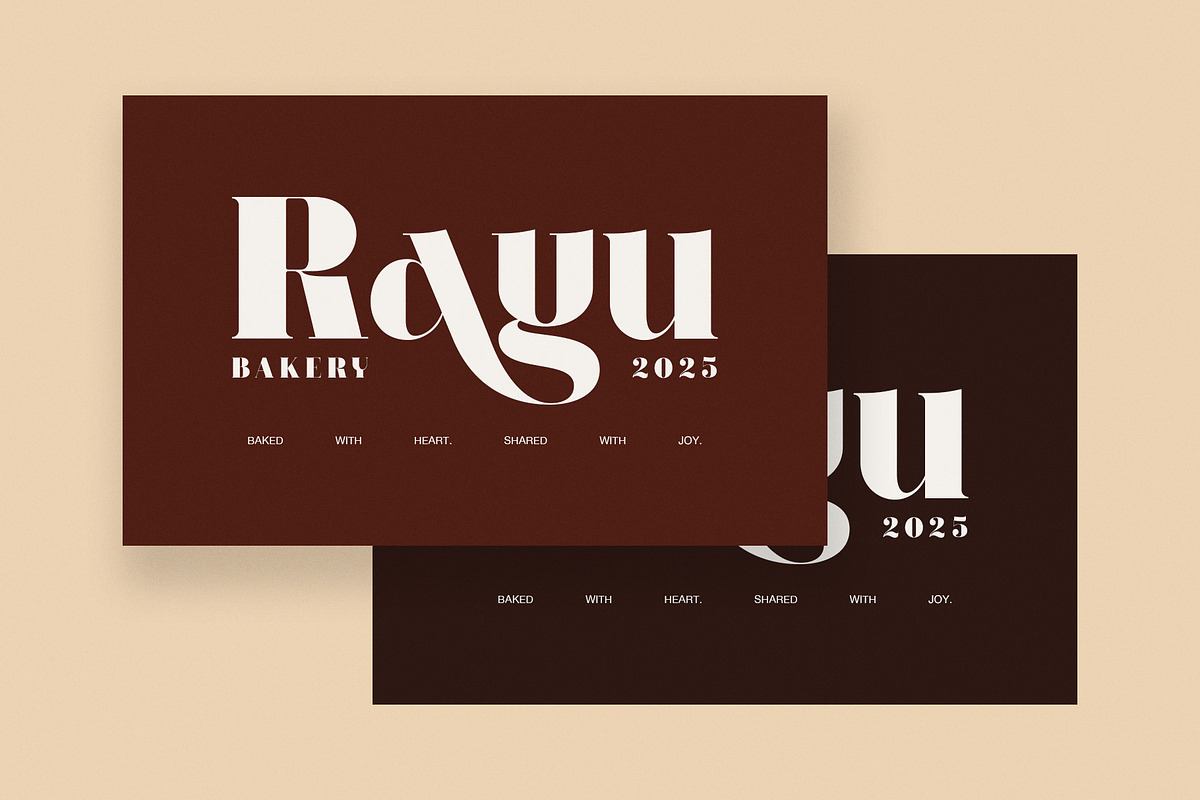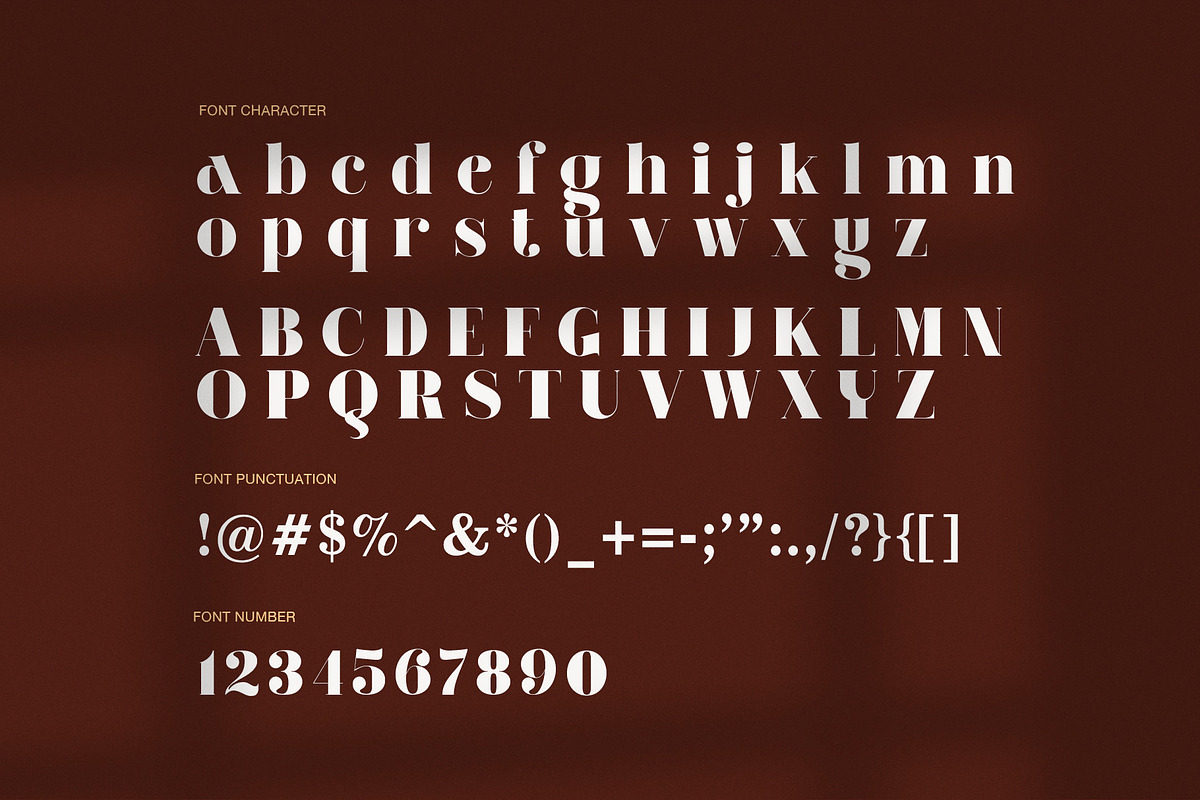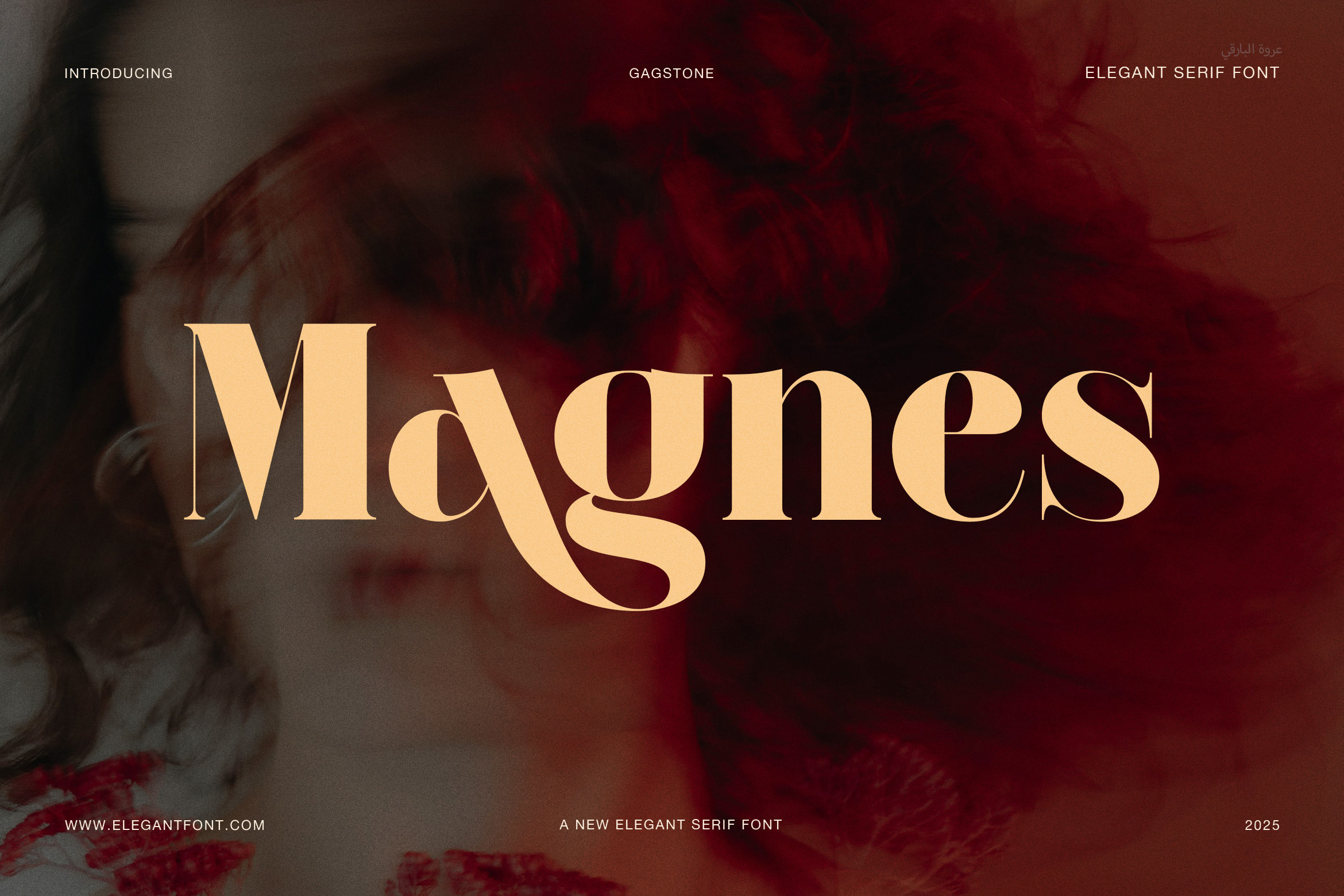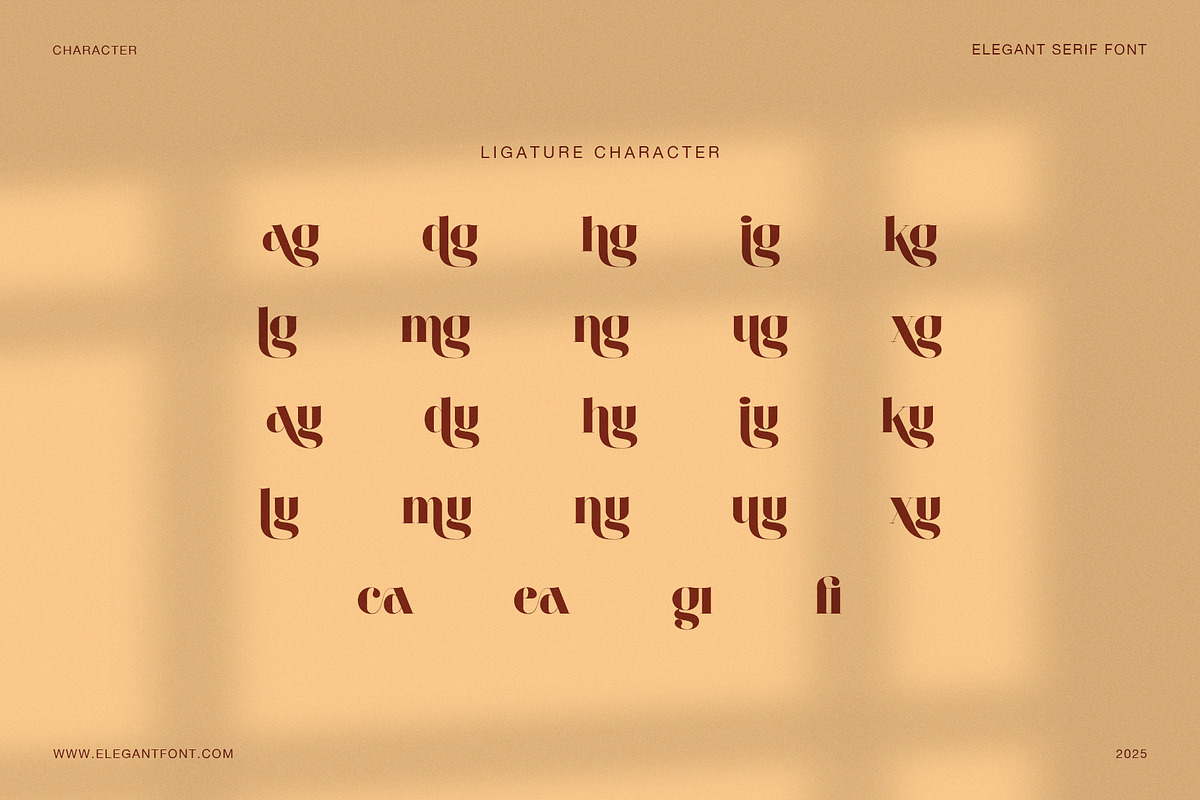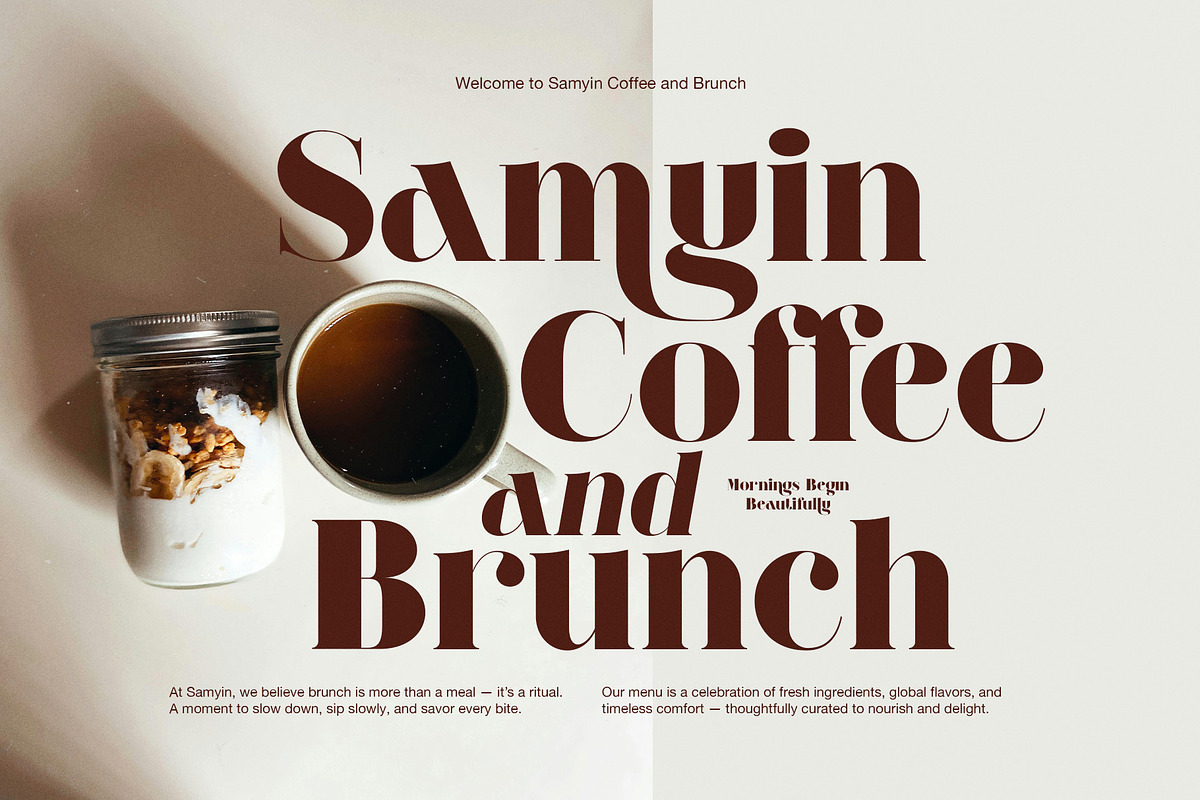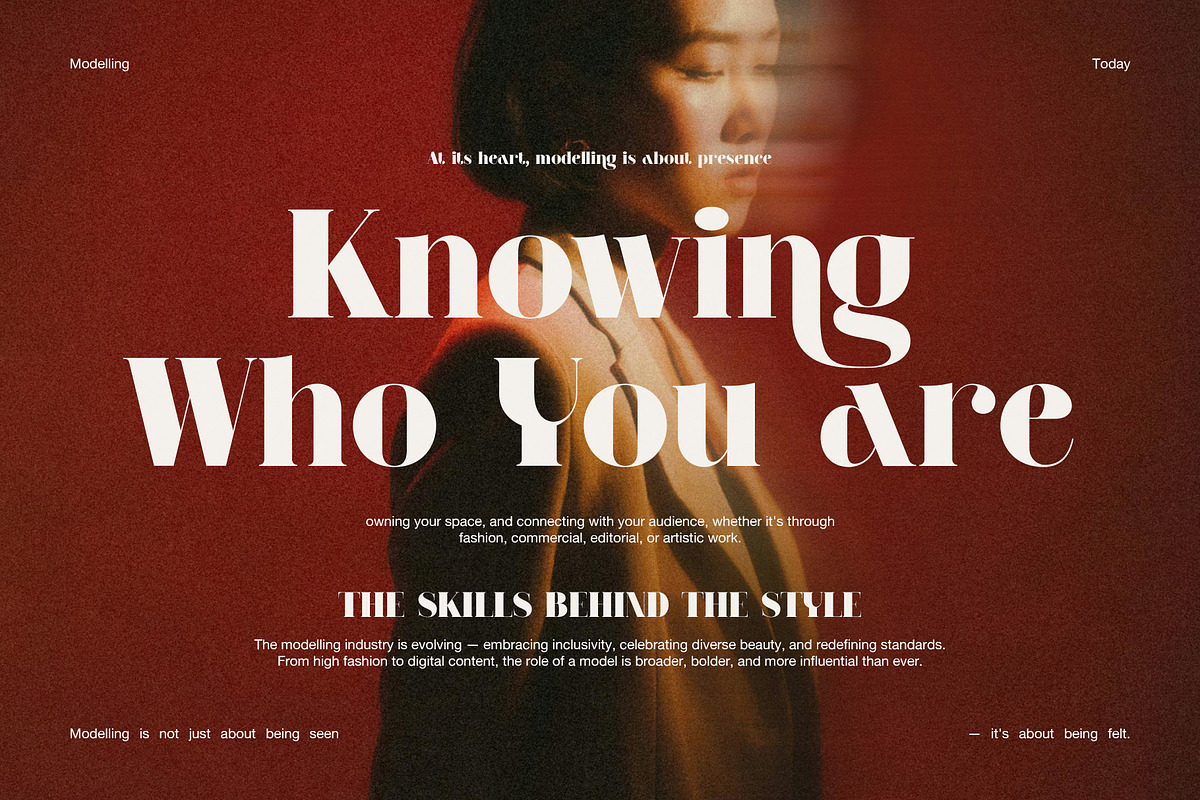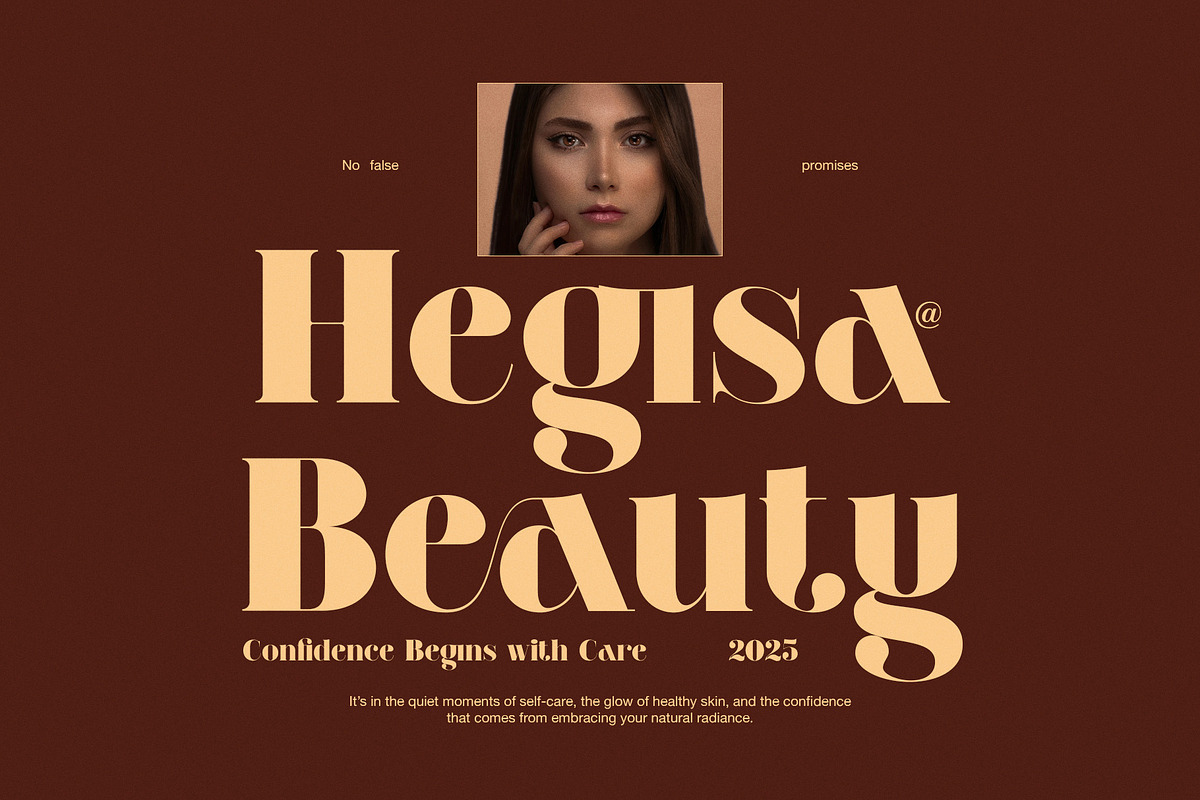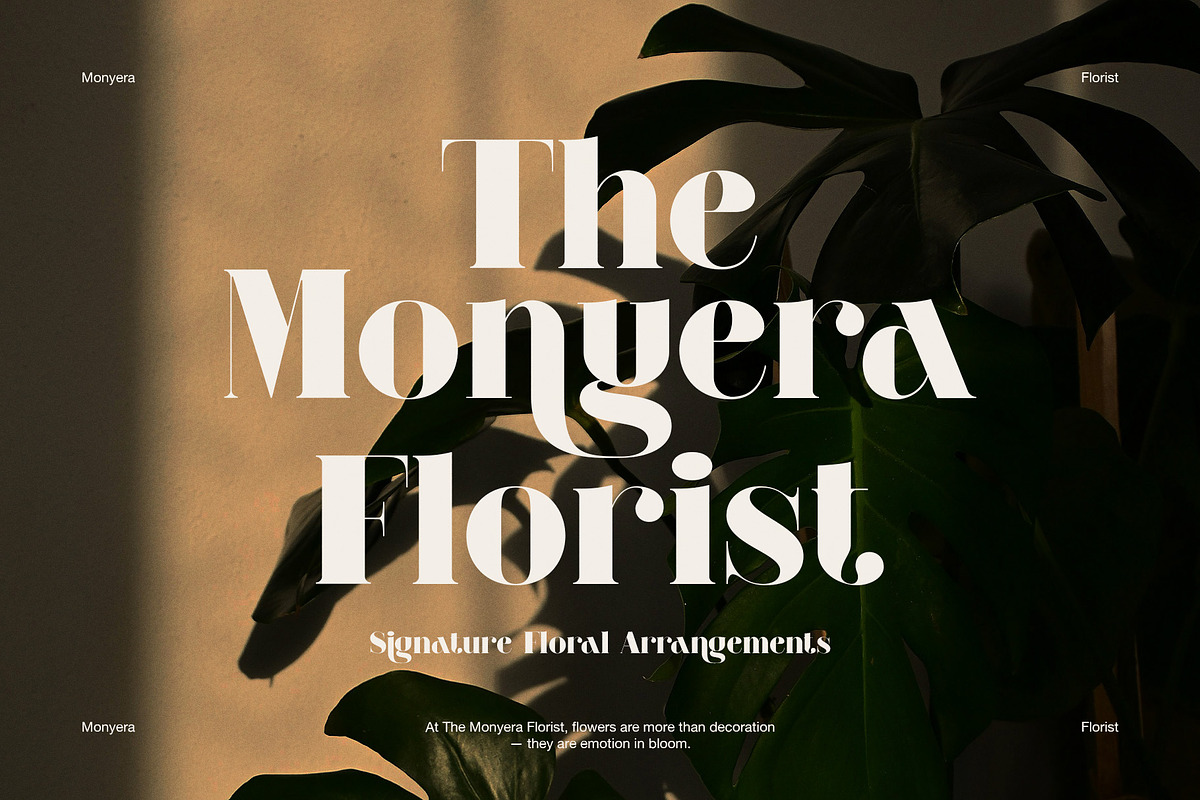
Magnes Elegant Serif Font
Magnes is an elegant serif font designed to express confidence, warmth, and refined beauty. It blends classic serif structure with soft curves and graceful contrast, creating a typeface that feels both timeless and modern. Because of its balanced proportions, Magnes delivers a strong visual presence without feeling heavy or rigid.
This font works beautifully across fashion, beauty, editorial, and lifestyle designs. Moreover, its flowing letterforms bring a sense of calm and sophistication to every composition. As a result, Magnes feels natural in magazine headlines, branding layouts, and premium product designs. At the same time, it remains readable and polished in longer text settings.
Magnes includes carefully crafted uppercase and lowercase characters, giving designers full control over tone and rhythm. In addition, the elegant ligatures and stylistic alternates allow text to feel expressive while staying clean and professional. Therefore, each word can feel intentional and visually engaging.
Because Magnes balances softness with structure, it adapts easily to many creative directions. It performs well in beauty branding, skincare packaging, café menus, and fashion campaigns. Likewise, it fits editorial layouts, creative studios, and personal branding projects that require emotional depth and visual clarity.
Another key strength of Magnes is its versatility. While it feels luxurious, it never appears overdecorated. Instead, the smooth curves and refined terminals guide the eye naturally. Consequently, designers can create calm, premium layouts that feel modern and authentic.
Magnes is ideal for designers who want elegance without excess. Whether you are building a brand identity, designing a magazine cover, or creating digital content, this elegant serif font helps your message feel confident, tasteful, and memorable.
Fashion and beauty branding
Editorial and magazine design
Skincare and lifestyle packaging
Café, bakery, and boutique logos
Creative studio and personal branding